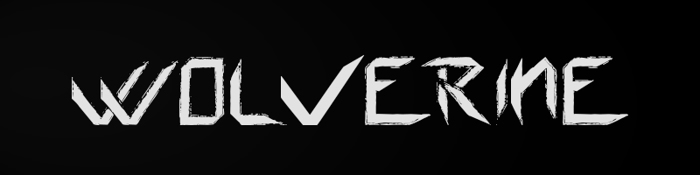
Wolverine's Pseudo Font
Wolverine's Pseudo is inspired by the fictional character "Wolverine". The Font was created keeping the appearance and design elements of the character in mind.